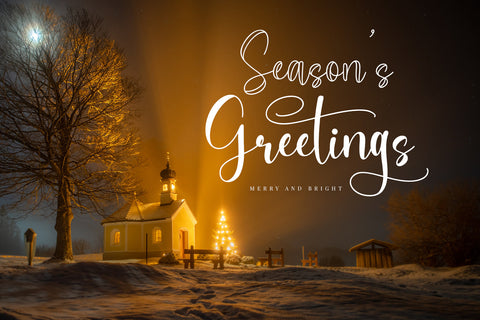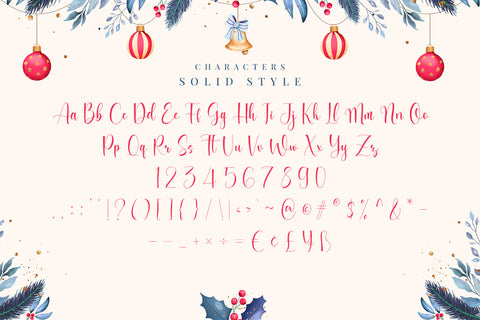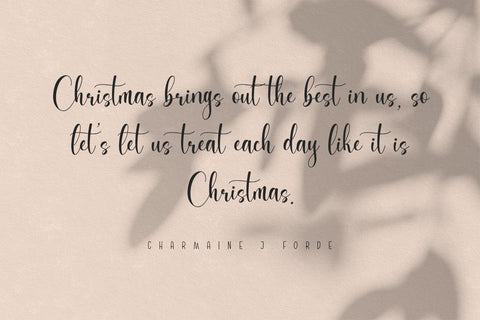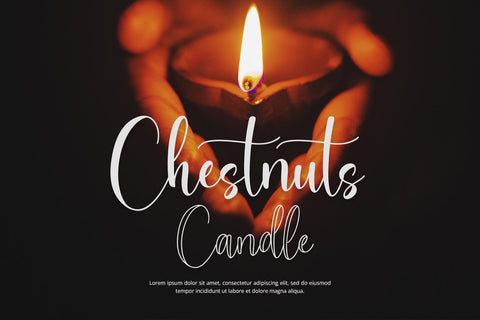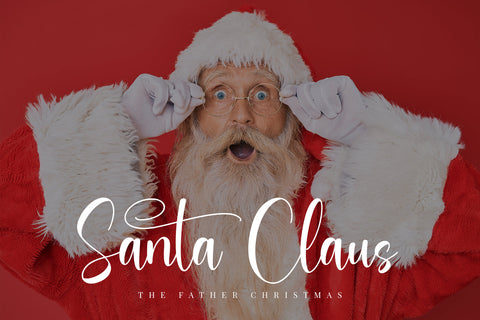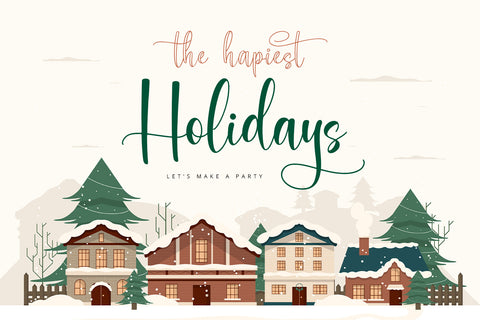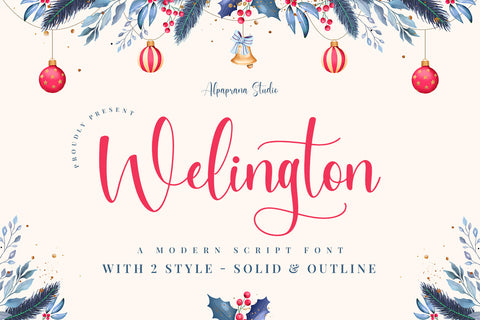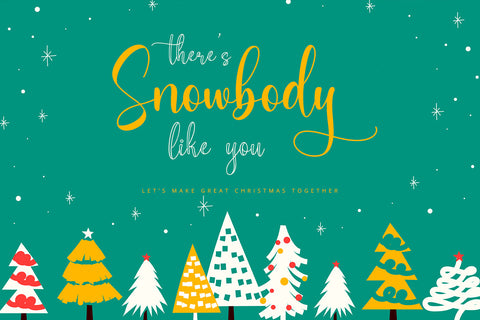
Welington - Modern Script Font
Welington is a modern script font with elegant and unique style. It will be perfectly used for Branding, Logo Design, Lettering, Logotype, Clothing, Poster, magazine, packaging, posters, shopping bags, t-shirts, book covers, photography, special events and other design project.